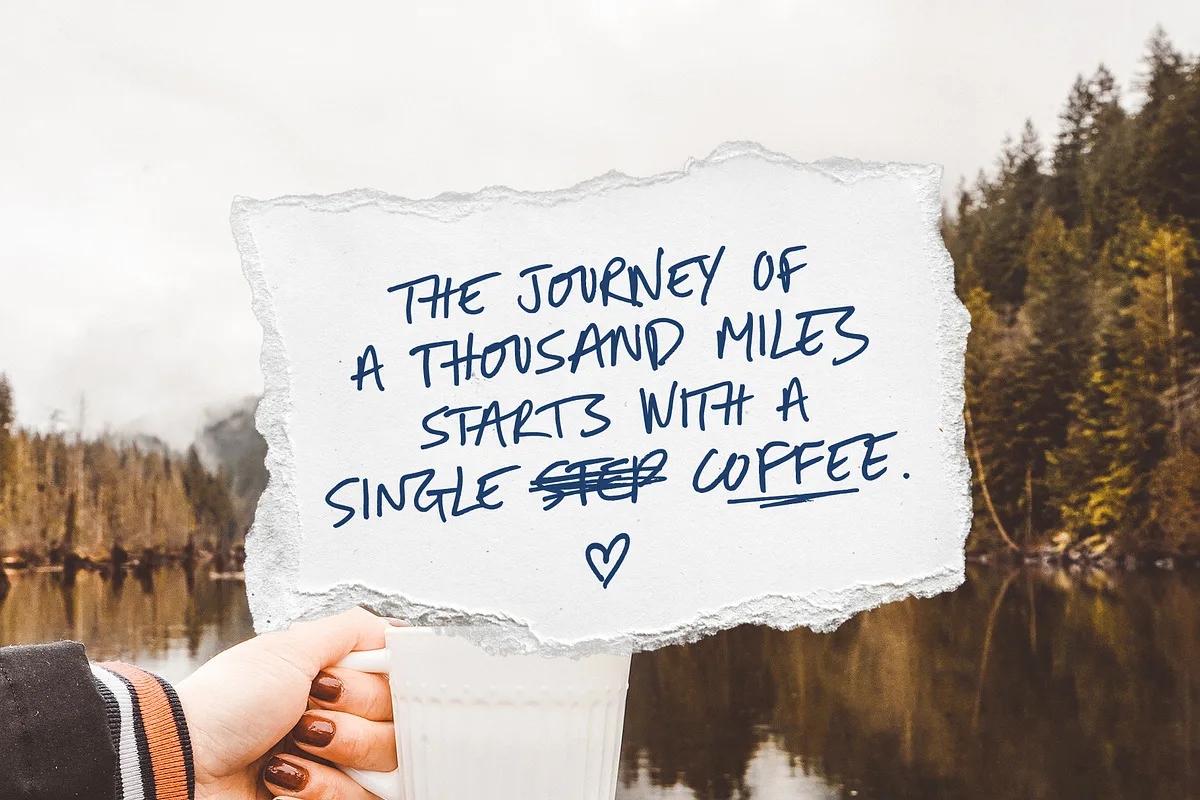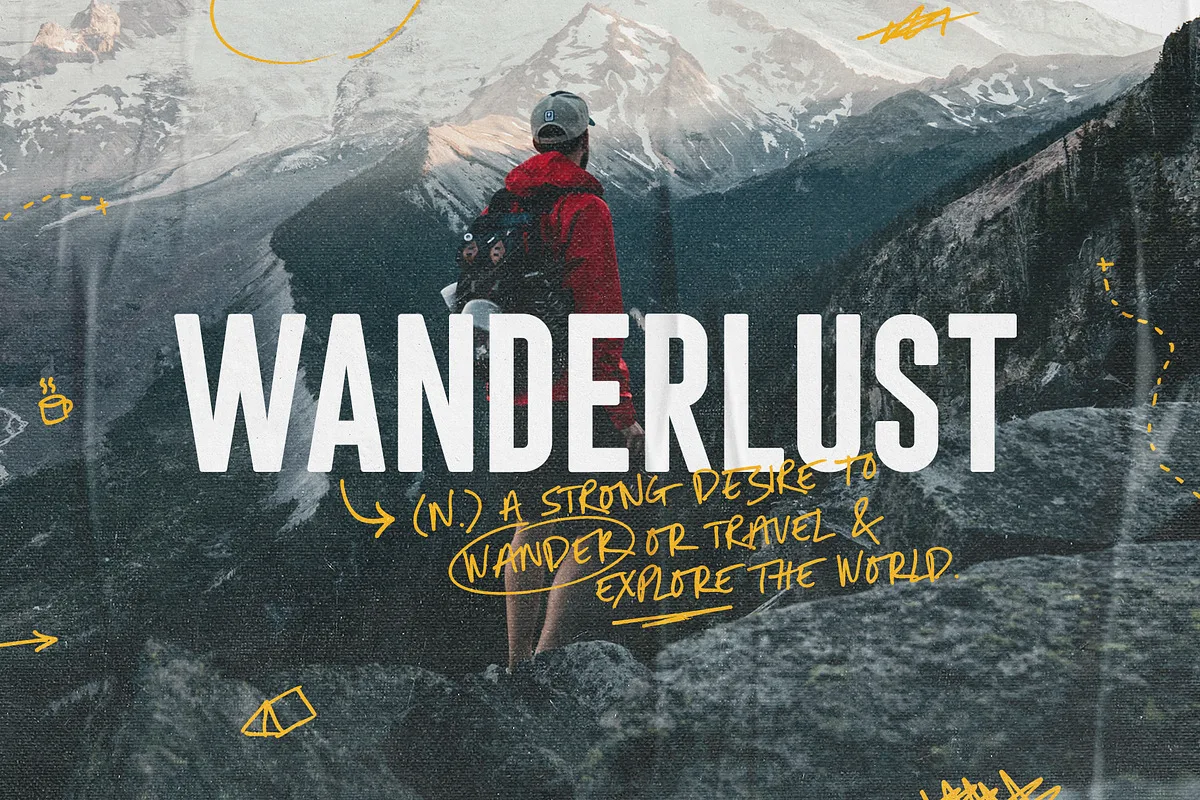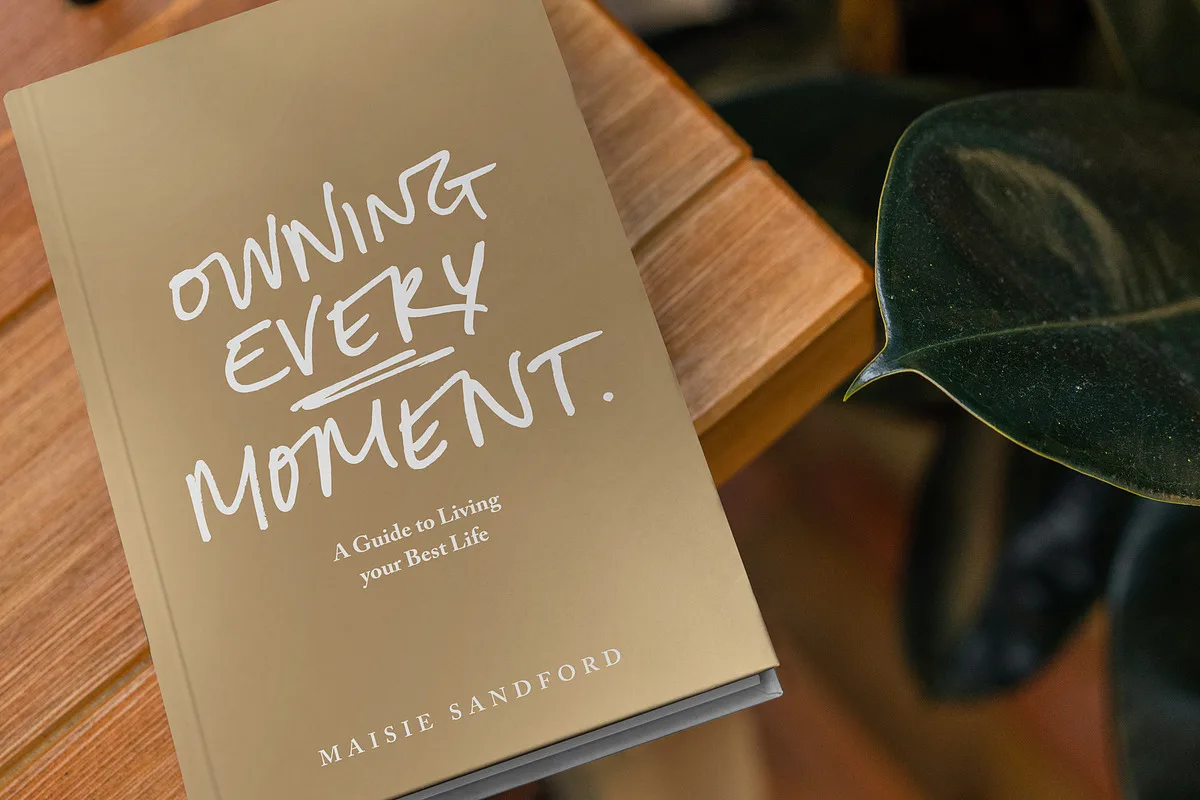
Summertime Stories Font
Summertime Stories is a charming uppercase script and doodle set. Crafted by hand with real pen on paper, Summertime Stories naturally replicates the fluidity and imperfections of messy handwriting. This achieved by providing an alternate set of each letter, along with 43 unique ligatures (double letter combinations), designed to create natural pen-stroke connections between handwritten letters.
Along with the script font, a separate ‘Doodles’ font is also included, containing 52 arrows, containers, underlines, scribbles, icons and sketches. These are designed to perfectly compliment the Summertimes Stories letterforms, allowing you to add an extra personal touch to your designs.
Summertime Stories Script Font
Summertime Stories font preview — sample text
Summertime Stories font alphabet, numbers and glyphs
Summertime Stories font style preview